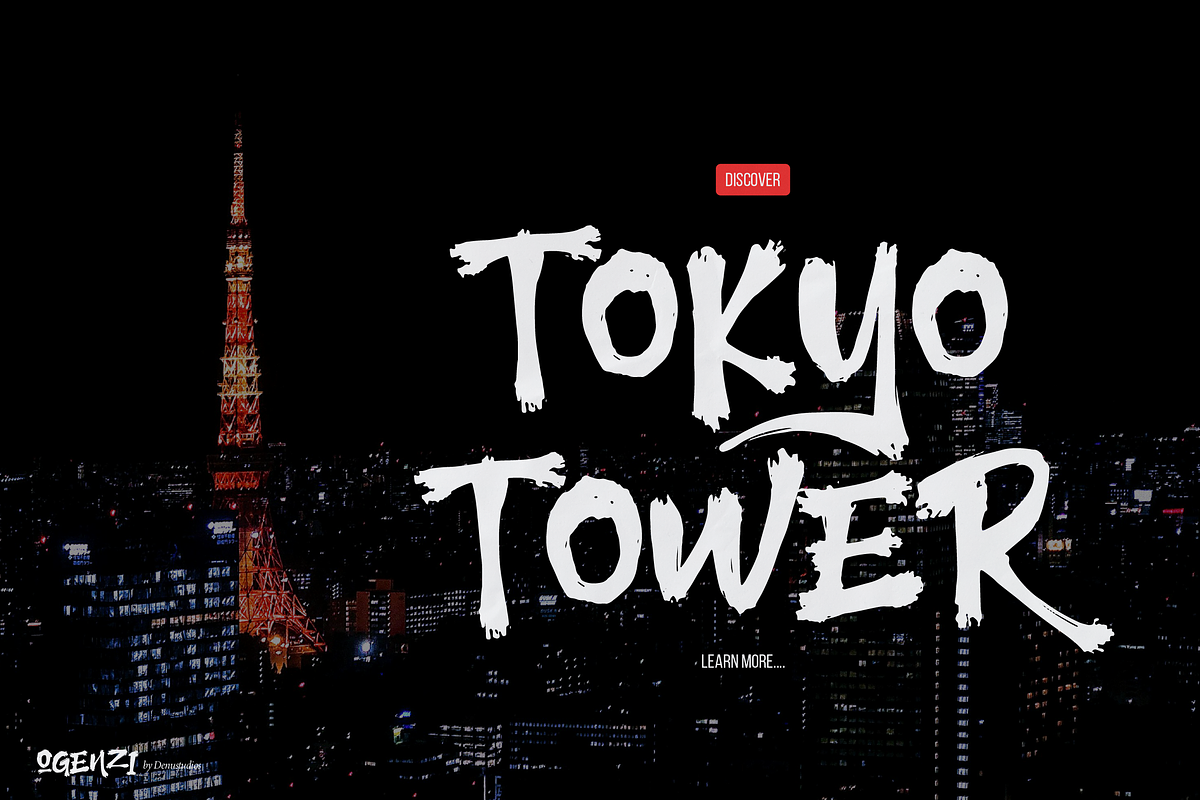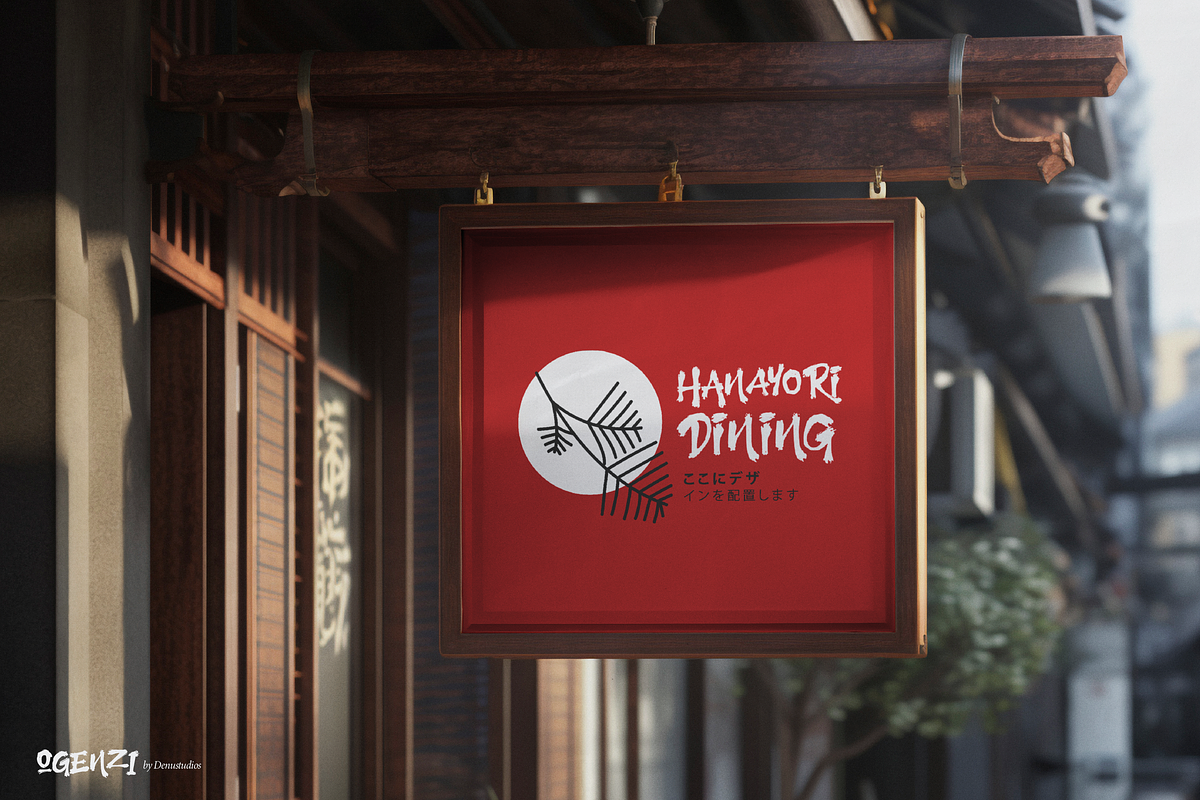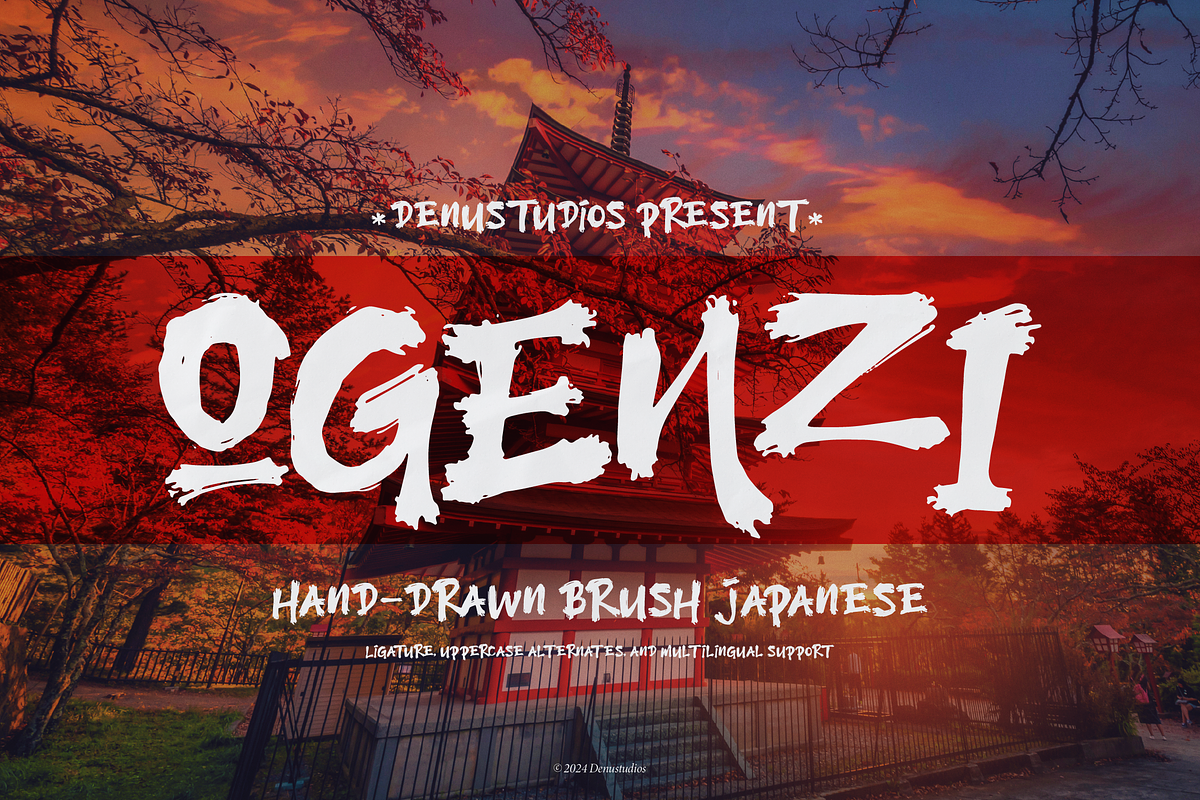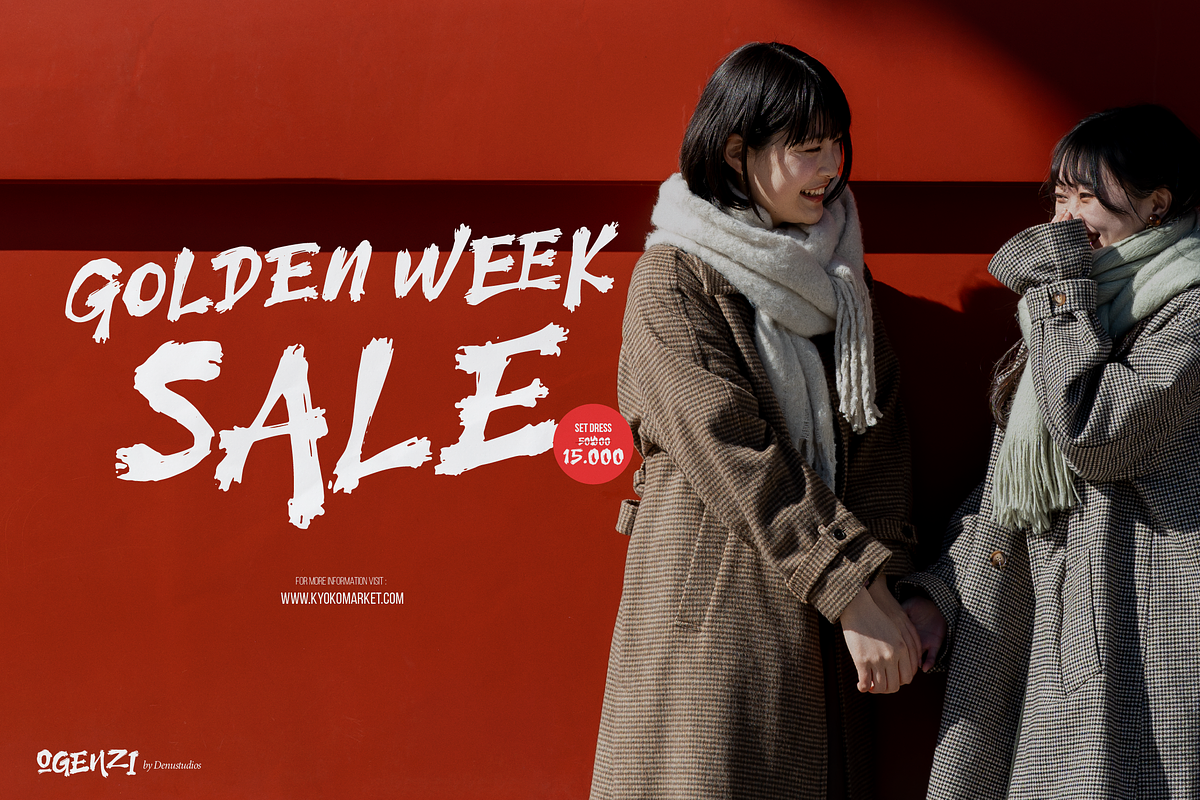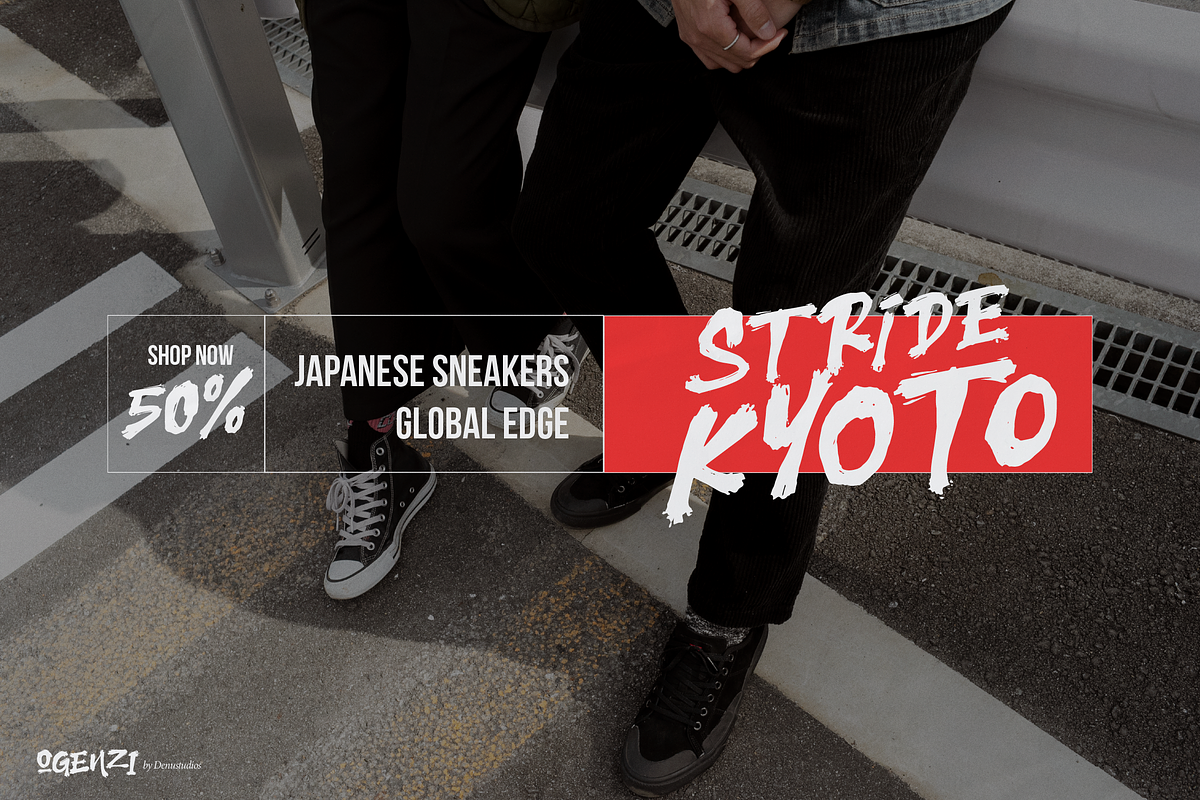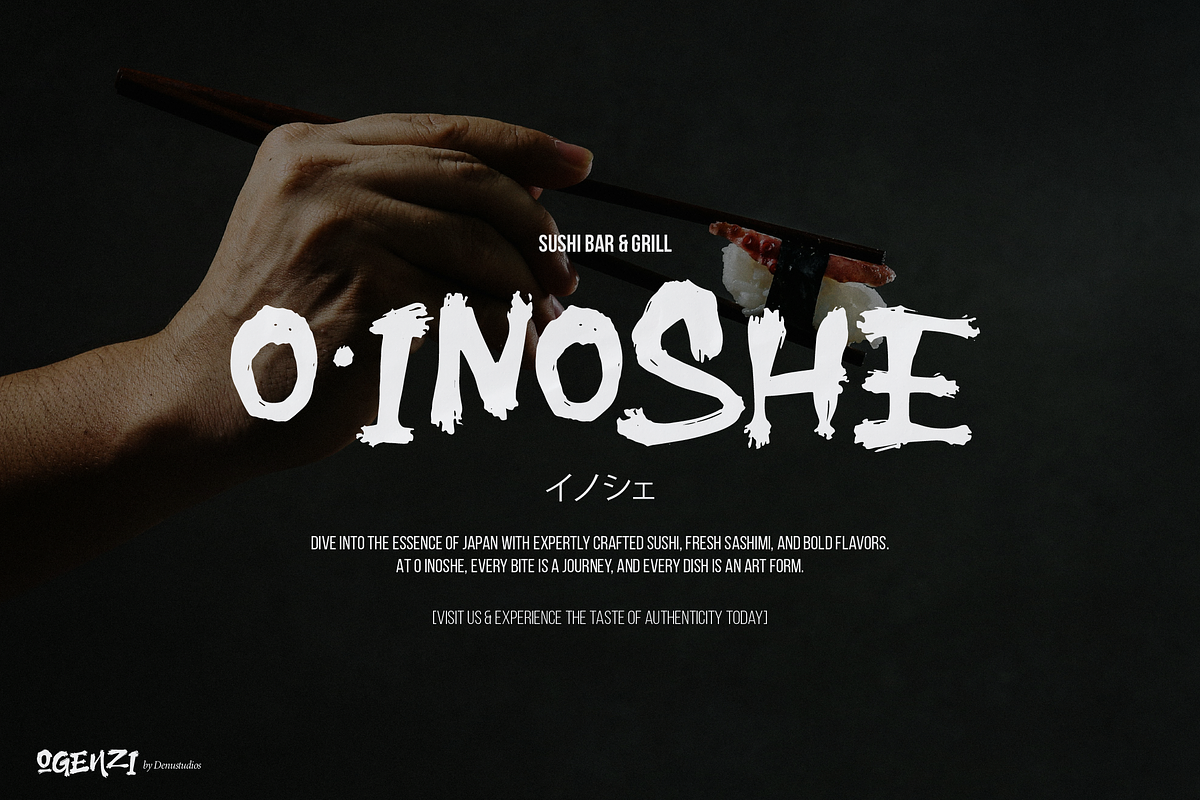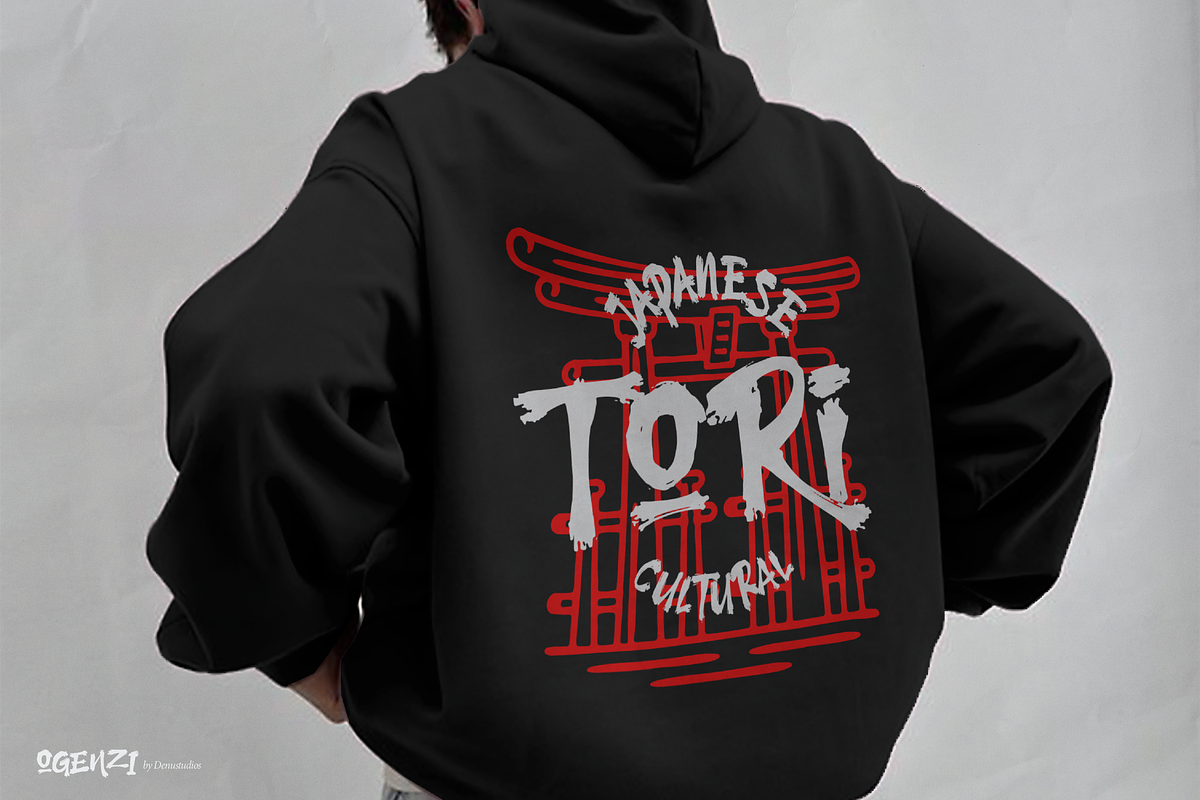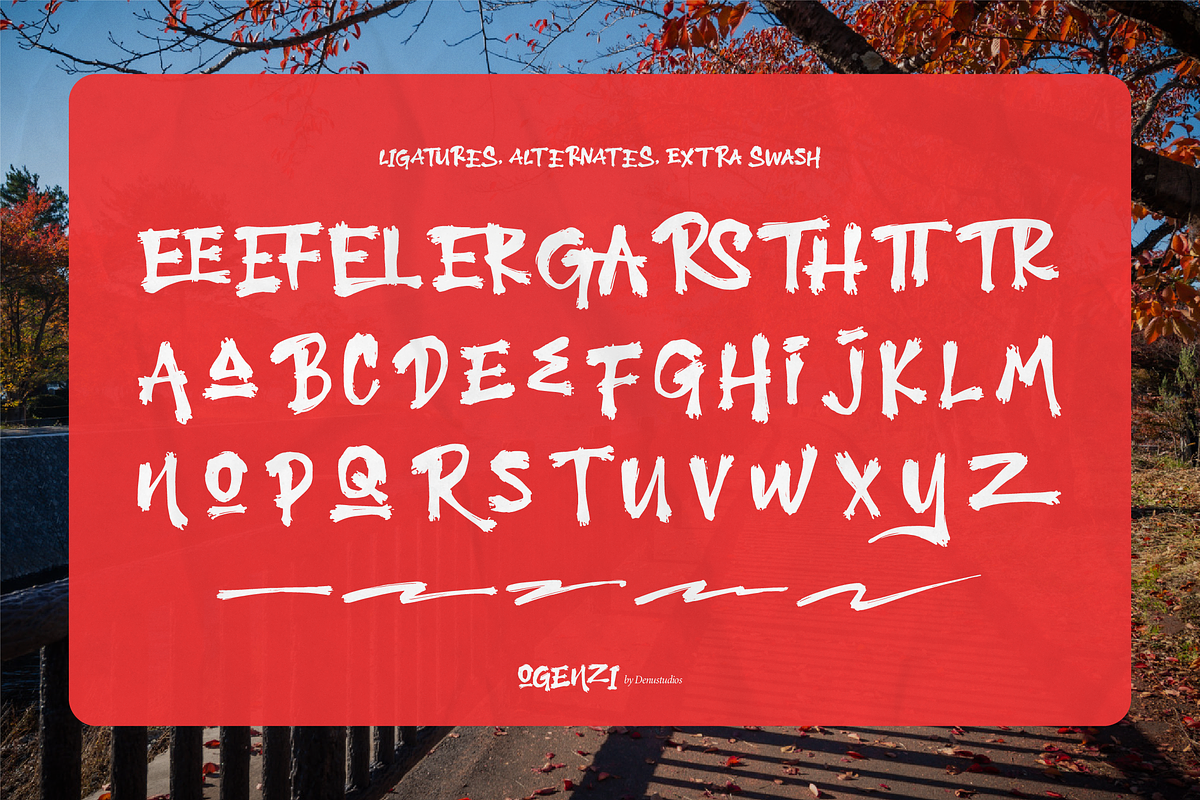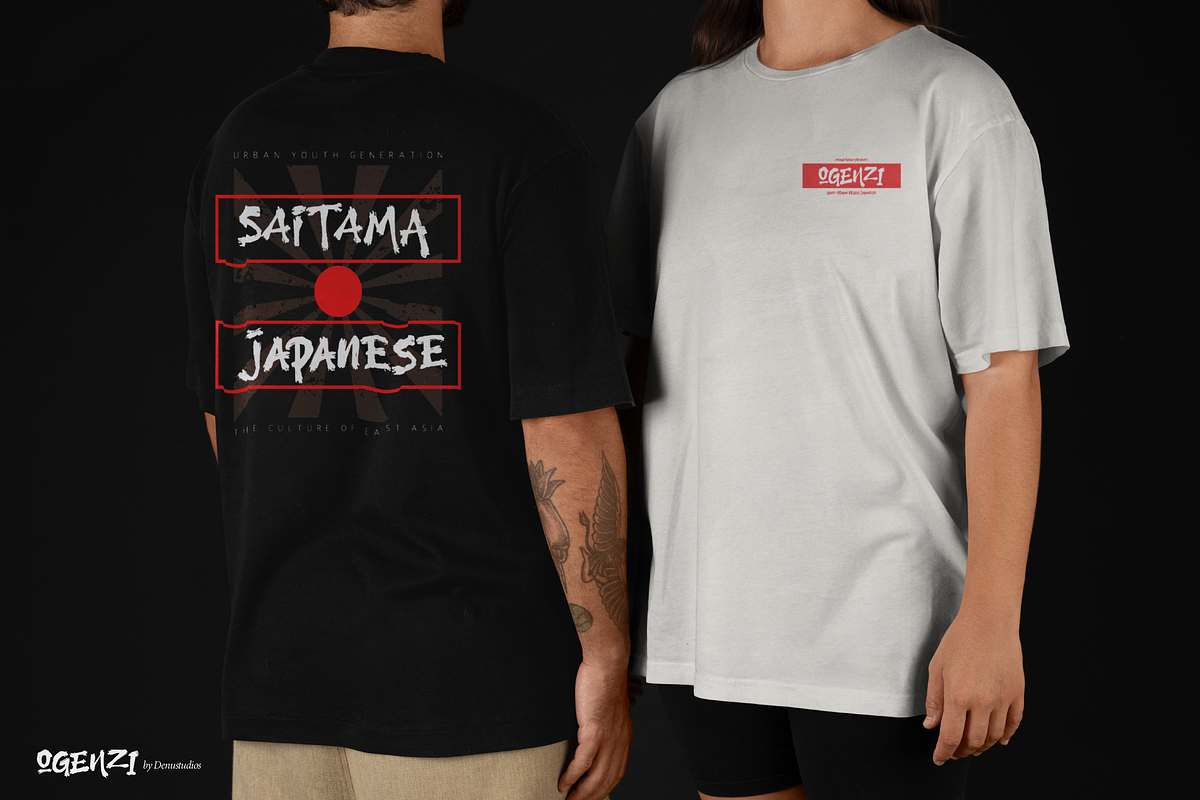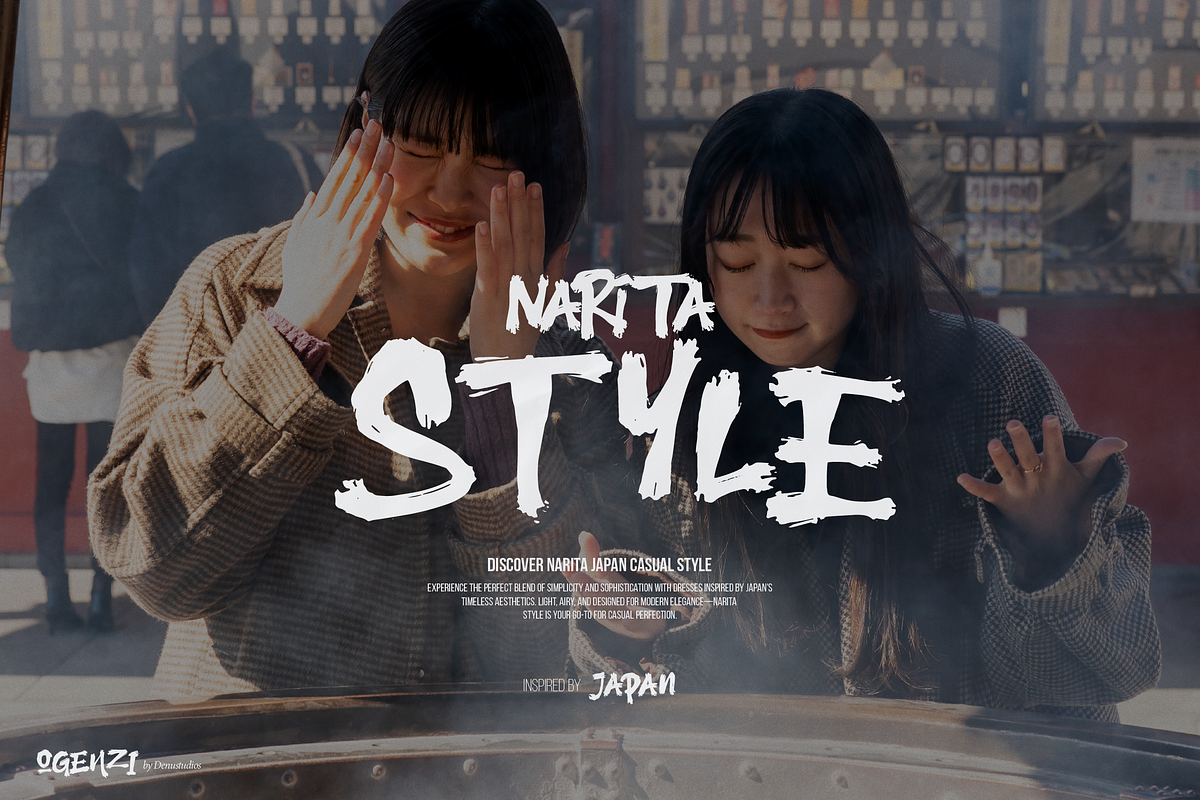
Ogenzi | Hand Drawn Japanese
Ogenzi | Hand Drawn Japanese, from Denustudios, suitable for any projects such as: logos, branding projects, homeware designs, product packaging, mugs, quotes, posters, shopping bags, t-shirts, book covers, name card, invitation cards, greeting cards, label, photography, watermark, special events, and all your other lovely projects that need a Hand Drawn Japanese taste.